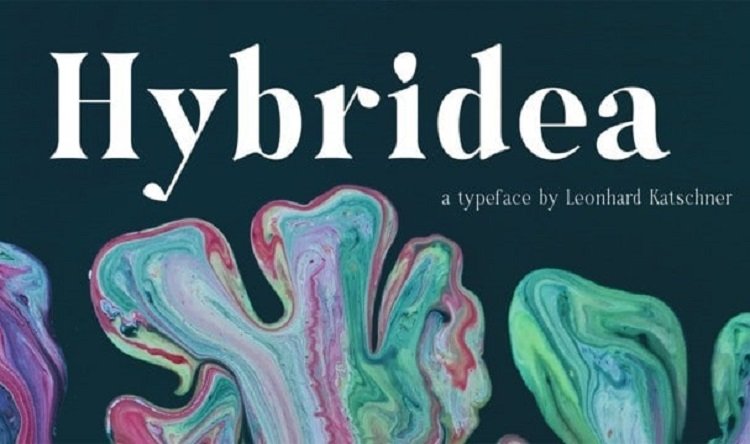
Hybridea Serif Font
Hybridea Font is a serif font family that is sharp, decisive and has a modern impression, designed to be combined with various fonts and can be applied to the design or branding of a project.
This font consists of uppercase, lowercase, ligature, punctuation, symbol, mark, number, and multi-language support.